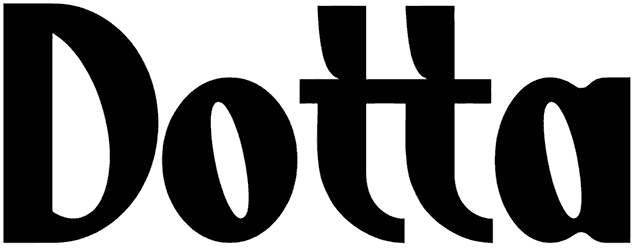
Dotta Font
Dotta font has a playful, creative personality where the letters feel built around simple shapes and visual rhythm. Its distinctive style gives words a unique decorative touch, making it a great choice when typography needs to add curiosity and charm. It works well for designs that want a fun identity without feeling too ordinary.
Use this sans serif font for logos, stickers, packaging, posters, children’s projects, social media graphics, or creative branding. Bright colors, geometric patterns, clean backgrounds, and imaginative layouts will help its character stand out and create a memorable visual experience.